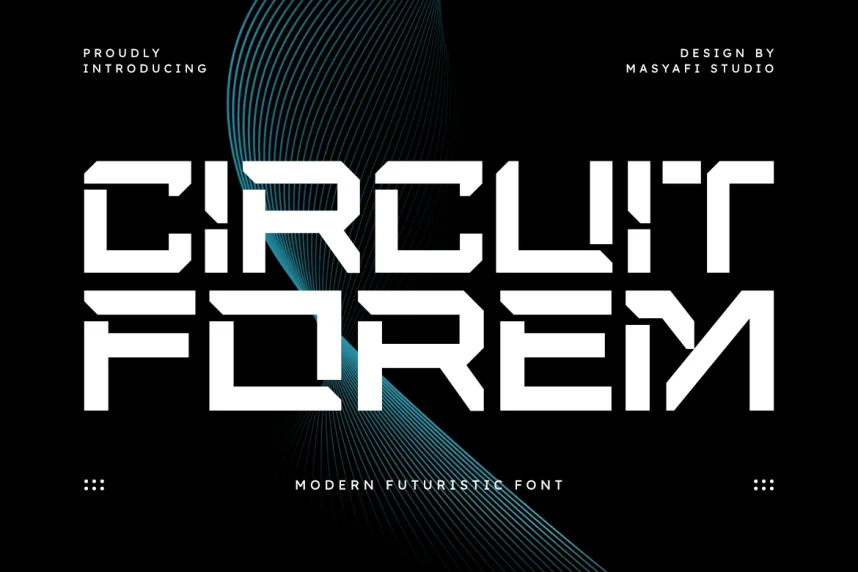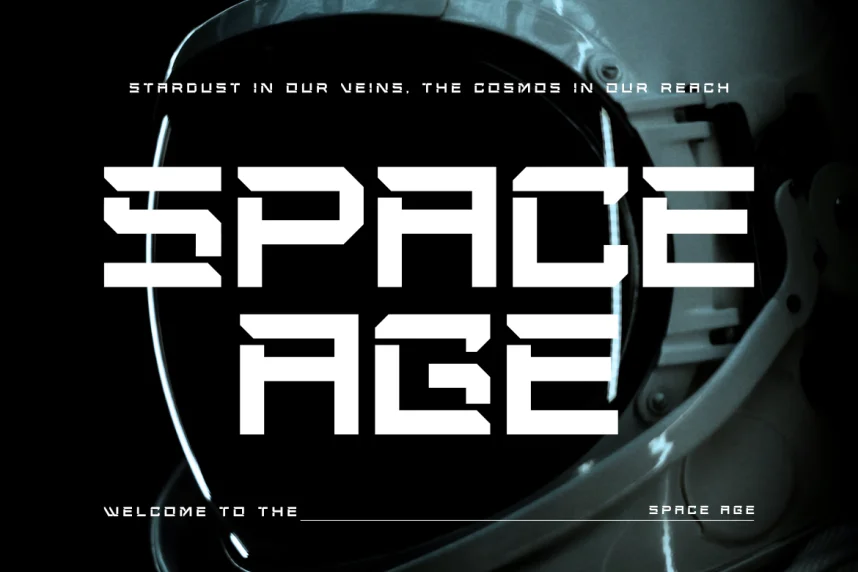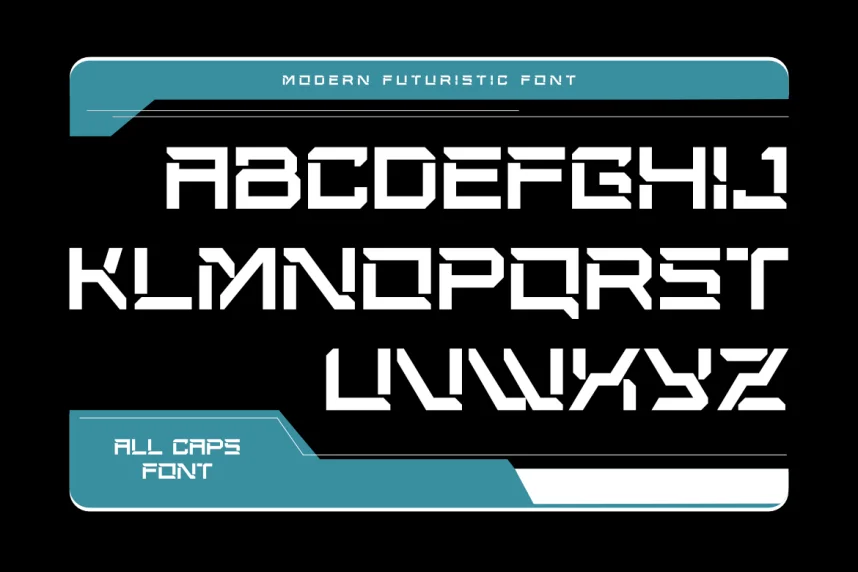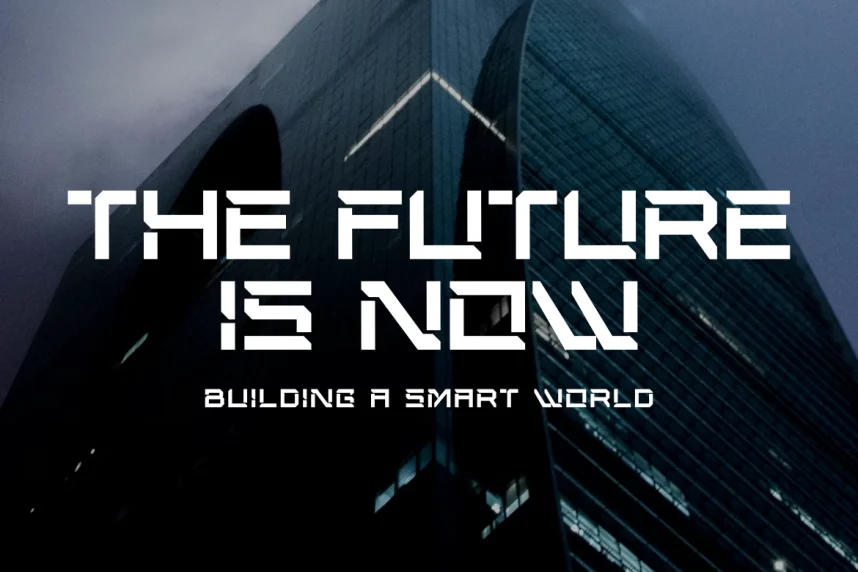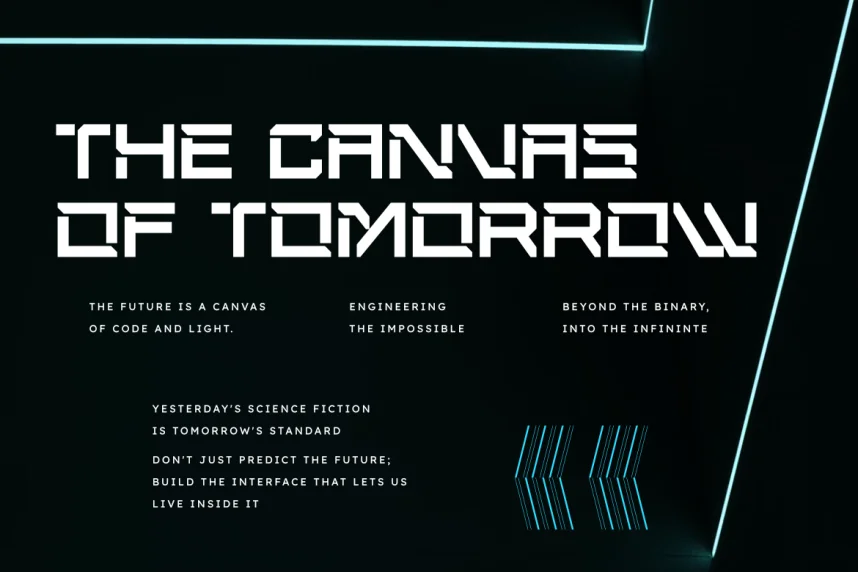
Circuit Forem Font is a futuristic display typeface designed for technology-focused visuals. Designers often struggle with sci-fi fonts that sacrifice readability. Circuit Forem avoids this by keeping letterforms structured and spacing consistent.
This font belongs to the display techno category. Its letterforms feature geometric cuts, straight edges, and uniform stroke weight. These traits support legibility while maintaining a digital tone.
Circuit Forem works well for technology branding, gaming visuals, UI headings, event posters, and motion graphics. Designers typically pair it with a clean sans-serif for body content.